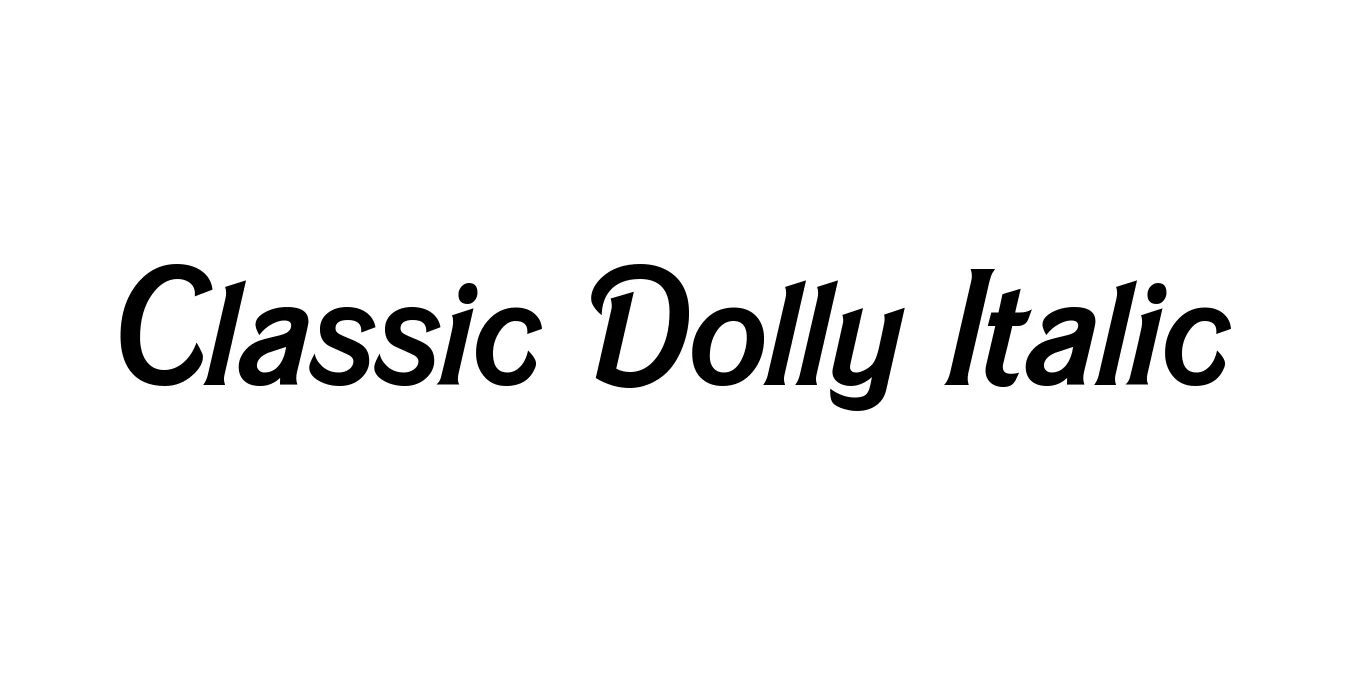
Classic Dolly Italic
Designed by Underware
Classic Dolly Italic is a distinguished humanist serif typeface created by the acclaimed Dutch design collective Underware. Originally released in 2001, Dolly was designed with a specific focus on book typography, aiming to provide a warm and rhythmic reading experience. The italic variant is particularly noted for its fluid, calligraphic construction, which offers a soft yet structured contrast to its roman counterpart, making it ideal for emphasizing text without disrupting the visual flow of a page.
The design philosophy behind Classic Dolly centers on "low-contrast" elegance and organic shapes. Unlike more rigid digital serifs, Dolly possesses a hand-drawn quality that feels both timeless and approachable. Its sturdy proportions and generous x-height ensure that it remains exceptionally legible even at small point sizes, a trait that has secured its place as a staple in high-end editorial design and literary publishing for over two decades.
Classic Dolly Italic Best Uses
Perfect for typesetting novels, essays, and long-form literature due to its high readability.
Excellent for magazines and journals that require a sophisticated and warm aesthetic.
Suitable for heritage-focused brands looking for a professional yet human touch in their identity.
Works well for blogs and digital articles where a classic, scholarly feel is desired.